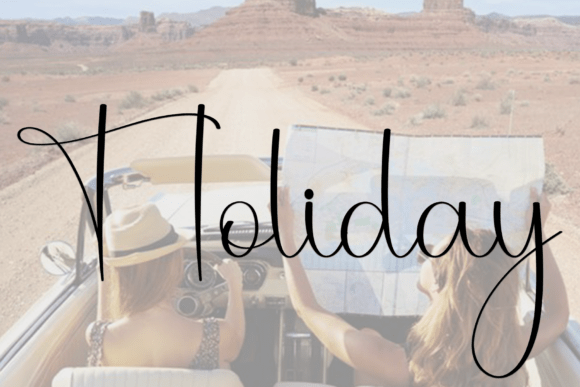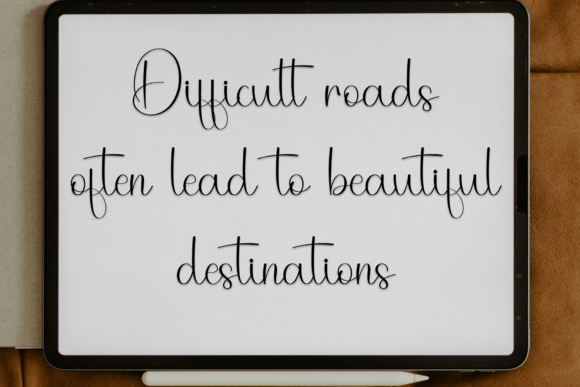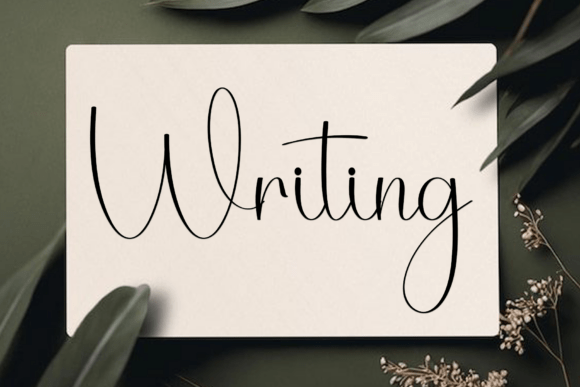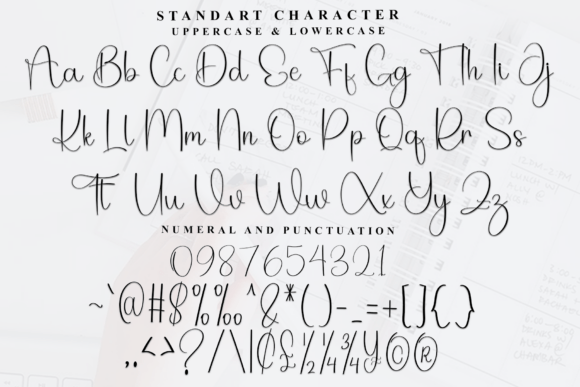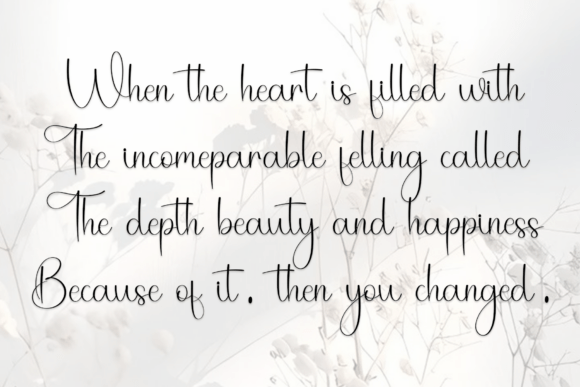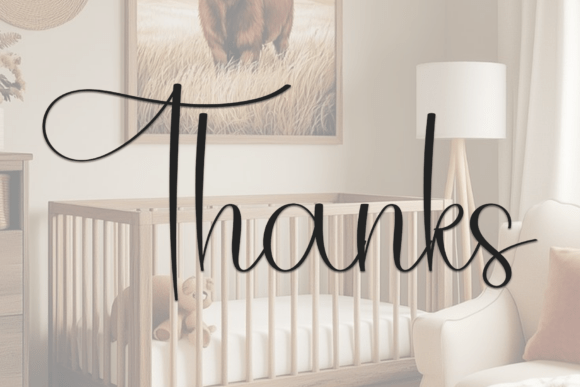
Easter Font: The Perfect Addition to Your Design Arsenal
Are you tired of using the same old fonts for your personal projects, invitations, and social media graphics? Look no further than the Easter Font, a casual and creative typeface that exudes warmth and friendliness. With its round, playful strokes, this font creates a relaxed and approachable feel that’s perfect for designers and crafters looking to add a touch of whimsy to their work.
The Characteristics of Easter Font
The Easter Font is a charming, hand-drawn typeface that’s designed to add a fun and unique touch to any design. Its key characteristics include:
- Round, playful strokes that create a relaxed and approachable feel
- A casual and creative aesthetic that’s perfect for personal projects and social media graphics
- A charming, hand-drawn look that adds a touch of whimsy to any design
Use Cases for Easter Font
The Easter Font is a versatile typeface that can be used in a variety of design applications, including:
- Personal projects: Add a touch of whimsy to your personal projects, such as scrapbooking, card making, and journaling.
- Invitations: Use the Easter Font to create custom invitations for parties, weddings, and other special events.
- Social media graphics: Add a playful touch to your social media graphics, such as blog posts, Facebook updates, and Instagram stories.
- Crafting: Use the Easter Font to create custom titles and headings for your crafting projects, such as knitting patterns and sewing tutorials.
Why Choose Easter Font?
There are many reasons why designers and crafters should choose the Easter Font for their projects. Here are just a few:
- Unique and playful aesthetic: The Easter Font adds a touch of whimsy and fun to any design.
- Versatile: The Easter Font can be used in a variety of design applications, from personal projects to social media graphics.
- High-quality: The font is designed with high-quality, crisp lines that look great in both print and digital formats.
Tips for Using Easter Font
Here are a few tips for getting the most out of the Easter Font:
- Experiment with different colors: The Easter Font looks great in a variety of colors, so don’t be afraid to experiment and find the perfect hue for your design.
- Pair with other fonts: The Easter Font pairs well with other playful fonts, so try combining it with other typefaces to create a unique look.
- Use in combination with graphics: The Easter Font looks great when used in combination with graphics and illustrations, so try adding a playful touch to your designs.
The Easter Font is a unique and playful typeface that’s perfect for designers and crafters looking to add a touch of whimsy to their work. With its round, playful strokes and charming, hand-drawn aesthetic, this font is sure to become a favorite in your design arsenal. Whether you’re working on personal projects, invitations, or social media graphics, the Easter Font is a versatile and high-quality typeface that’s sure to impress.